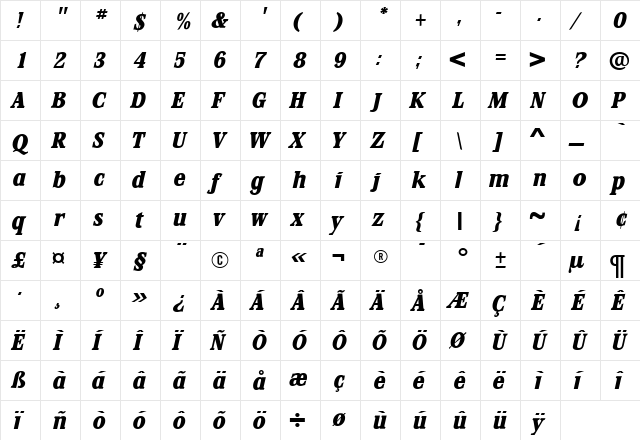
StirlingExtraBoldItalic Roman Font Preview
Design Context for StirlingExtraBoldItalic Typeface
StirlingExtraBoldItalic offers clean, dependable letterforms without strong stylistic allegiance, making it a practical choice for designers who need flexibility. The dynamic lean of this cut emphasises speed and emphasis in any layout. The heavy weight commands attention and anchors typographic hierarchies.
Pro Tip: Try StirlingExtraBoldItalic for annotation and caption copy alongside an upright companion — the contrast in angle creates a dynamic but ordered typographic system.